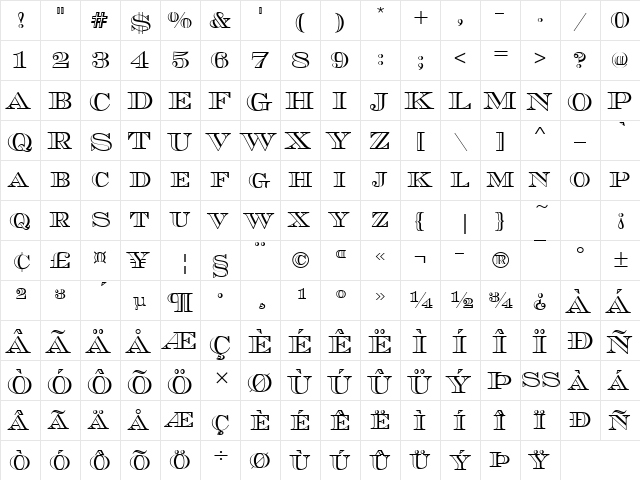
Chevalier Becker Open Discaps Regular
Design Context for Chevalier Becker Open Discaps Typeface
Chevalier Becker Open Discaps takes a measured approach to typography — its balanced proportions and neutral character make it a reliable workhorse for both digital and print work.
Pro Tip: Use Chevalier Becker Open Discaps in both headline and body roles to test its range before committing to a single application.